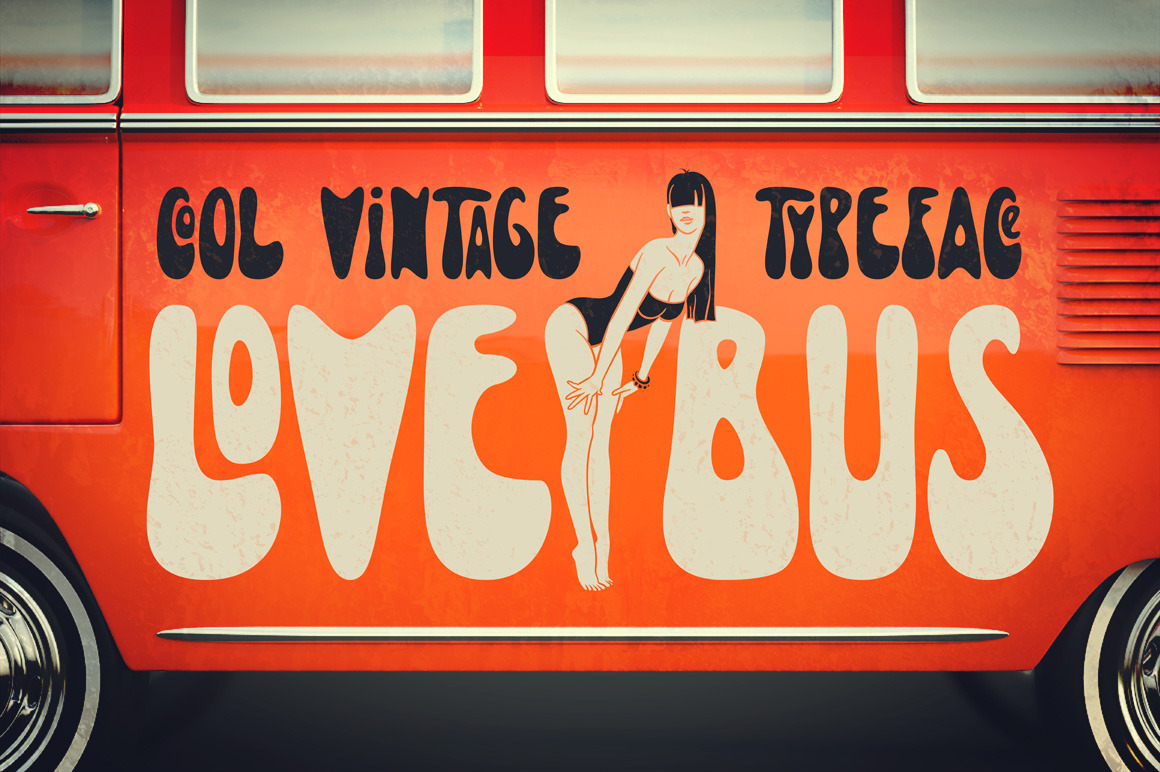
Lovebus font + graphics
Hello! Introducing vintage hippie style font "Lovebus". It has 26 automatically replaceable ligatures to make your text more original. With this font you also will get a bonus graphics. It includes girl illustration from cover and seamless pattern. I hope you'll enjoy it. Thank you!
Note: the font contains only latin letters (all the characters you can see on third screenshot)